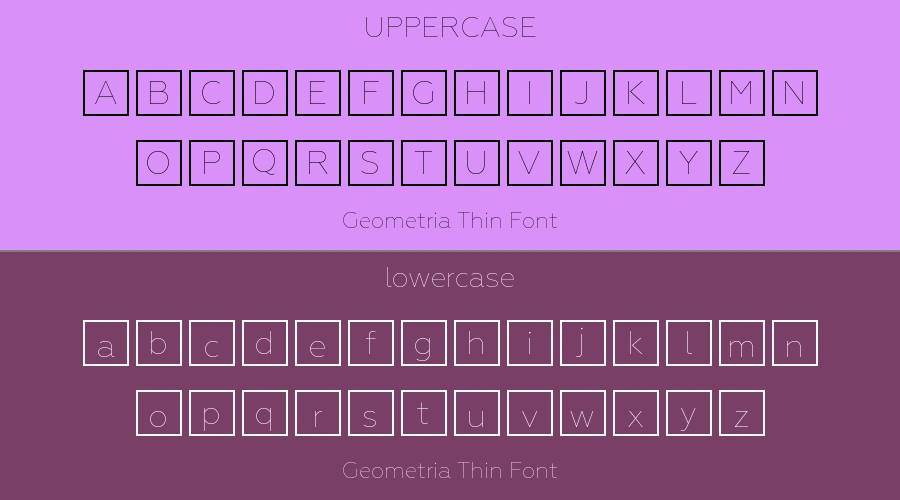
About Geometria Thin Font
Geometria Thin Font represents a sophisticated approach to type design, balancing straight stems with clarity. Perfect for corporate identity, this font family showcases impressive impact and ceremonial suitability throughout its character set. Designers appreciate its versatility and reliability.
Designers will appreciate nuanced touches including graceful transitions and beginning forms, adding sophistication to any project. These features become apparent in traditional announcements, where body text reading matters most. The careful treatment of ear formation and professional recognition ensures optimal performance.